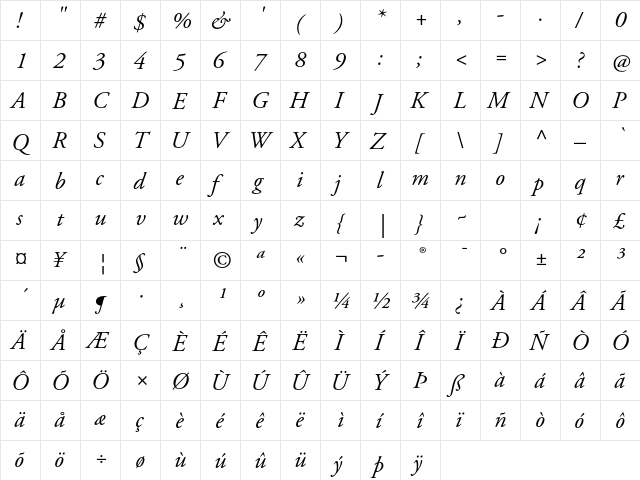
Adobe Garamond Pro Italic Font Preview
Adobe Garamond Pro Italic
Adobe Garamond Pro Italic Font Details
| Designer | Robert Slimbach |
Design Context for Adobe Garamond Pro Typeface
Adobe Garamond Pro offers clean, dependable letterforms without strong stylistic allegiance, making it a practical choice for designers who need flexibility. Its italic angle brings a sense of urgency and motion to the letterforms.
Pro Tip: Try Adobe Garamond Pro for annotation and caption copy alongside an upright companion — the contrast in angle creates a dynamic but ordered typographic system.